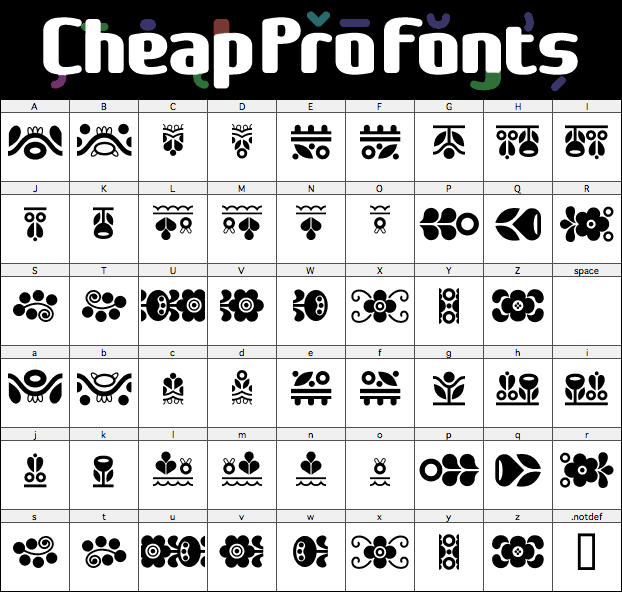
A collection of traditional hungarian line patterns. Repeatable to create borders. No "extended character set" as the standard text says under the sample, but still with an international flair... ;)